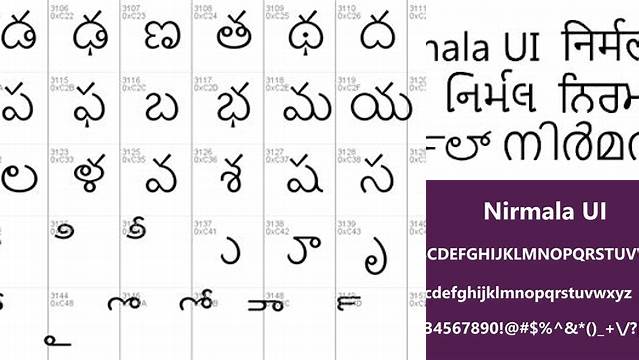
Hey guys! Are you on the hunt for the perfect Kannada font for your projects? Well, you've come to the right place! Today, we're diving deep into the world of the Nirmala UI Kannada font, and the best part? You can get a free download! Finding the right font can be a real game-changer, whether you're designing a website, creating a document, or just sprucing up your social media posts. A good font not only makes your content look better but also helps it resonate with your audience. And that's where Nirmala UI Kannada comes in. It's a fantastic choice for anyone looking to add a touch of elegance and readability to their Kannada text. So, let's get started on how you can get your hands on this awesome font and how to use it effectively. We'll cover everything from where to download it safely to how to install it on your computer, and even some tips on using it in your designs. Get ready to transform your Kannada content with this incredible font! Let's jump into it, shall we?
H2: Why Choose Nirmala UI Kannada Font?
So, why should you choose Nirmala UI Kannada over other Kannada fonts out there? Well, there are several compelling reasons. First and foremost, it's designed with user interface (UI) in mind. This means it's incredibly readable, even at smaller sizes, which is crucial for things like websites and apps. Nirmala UI Kannada is crafted to ensure that your text is easy on the eyes, allowing your audience to comfortably read and understand your message. The font's clean and modern design gives your content a professional look. It's not cluttered or overly stylized, which makes it suitable for a wide range of applications. Think about it: you need a font that complements your design, not one that competes with it. It provides a harmonious balance between aesthetics and functionality. Furthermore, Nirmala UI Kannada is specifically created to support the Kannada script, which means all the characters, ligatures, and special symbols are included. The creators have put a lot of thought into ensuring the font works seamlessly with Kannada text, offering a flawless experience. This is a big deal because not all fonts are created equal when it comes to supporting regional languages. This font takes into account the nuances of Kannada, making sure every letter and every word flows beautifully. Plus, this font also tends to be very versatile. Whether you're working on a simple document or a complex graphic design, Nirmala UI Kannada will adapt. It's great for headlines, body text, and even captions. You'll find it can be used in a multitude of different design settings. Nirmala UI Kannada is about creating a better experience for readers of Kannada text, all while making the text more visually appealing.
This font is strong, and its flexibility is one of its biggest strengths. Choosing a font that's visually appealing, easy to read, and works well with the Kannada script is absolutely crucial for effective communication. Nirmala UI Kannada is a prime example of all those qualities rolled into one amazing font. So, if you want your Kannada content to look its best, and to resonate with your audience, then look no further than this font.